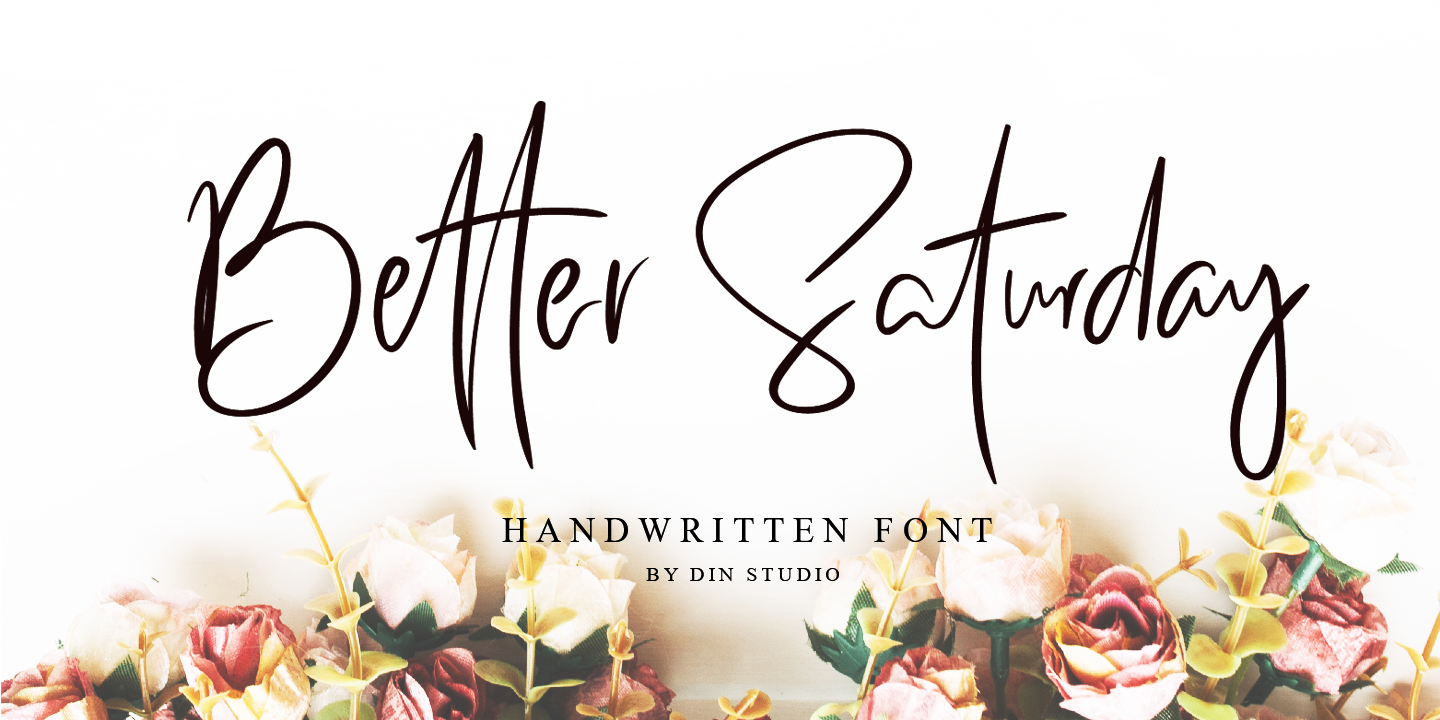
Better Saturday Font is perfect for weekend event promotions, casual lifestyle branding, fun social media graphics, relaxed coffee shop signage, leisure activity materials, weekend market advertising, casual dining restaurant menus, vacation rental marketing, recreational sports graphics, and laid-back entertainment venues. This cheerful typeface excels in applications where weekend relaxation and casual enjoyment need to be communicated with easygoing charm and stress-free personality that captures the essence of perfect Saturday moments.
What makes Better Saturday Font exciting is its remarkable ability to embody the carefree spirit and relaxed joy of weekend freedom through its friendly letterforms that radiate the comfortable ease of Saturday morning leisure. The font captures the essence of weekend bliss with its approachable construction and welcoming proportions that suggest the unhurried pace of days without deadlines and the simple pleasure of doing what you love. Its carefully crafted character details and laid-back personality create an atmosphere of genuine contentment that resonates with people seeking authentic relaxation and quality leisure experiences.
The Better Saturday Font family typically includes Regular and Bold weights, each maintaining the signature casual characteristics and weekend-friendly appeal. Some versions offer playful variants with enhanced relaxed styling, informal elements that amplify the easygoing aesthetic, and alternative character sets that provide creative flexibility. The family may also include condensed styles for efficient layouts and decorative treatments that enhance the leisurely appeal for casual applications requiring approachable visual communication.
Whether you're creating weekend lifestyle brands, casual entertainment materials, or relaxed social communications, Better Saturday Font Free Download delivers the perfect weekend vibe your leisure-focused projects deserve. Its casual character and easygoing styling make it an invaluable choice for coffee shops, casual restaurants, and leisure businesses working in hospitality, entertainment, and lifestyle sectors where authentic relaxation and genuine weekend spirit are essential for connecting with audiences who value quality downtime and stress-free experiences.